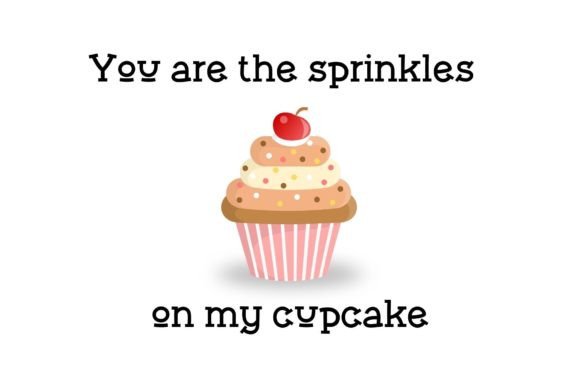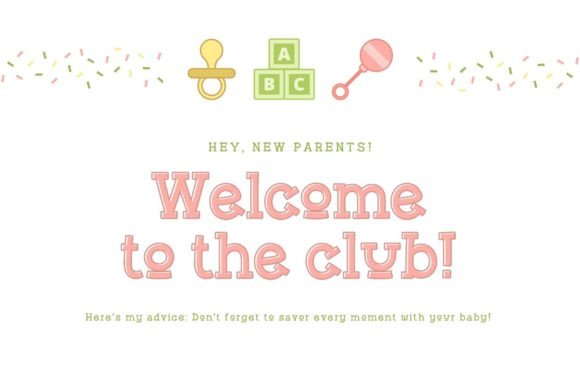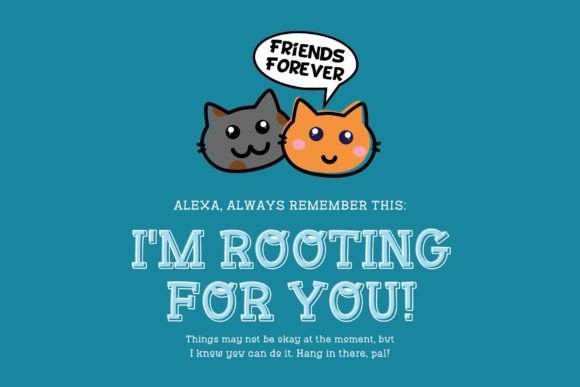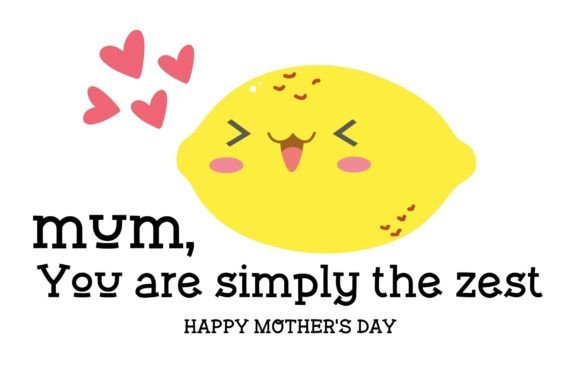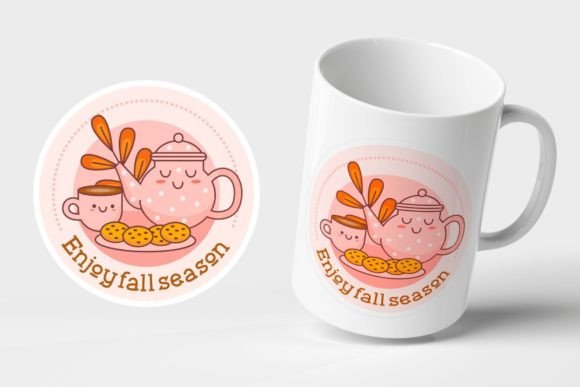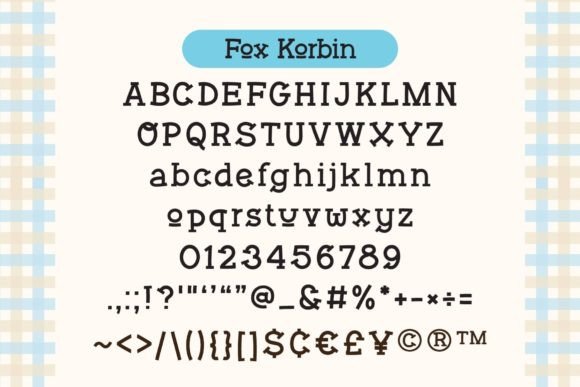
The Ultimate Guide to Fox Korbin Font: Unleashing Creative Possibilities
I’ll never forget the time I was working on a project for a client who needed a bold, eye-catching font to make their brand stand out. I scoured the internet, trying font after font, but nothing seemed quite right. That was until I stumbled upon Fox Korbin Font. Its unique blend of playfulness and sophistication instantly captured my attention, and I knew I had found the perfect fit. In this article, I’ll share my experience with Fox Korbin Font, its features, and how to make the most of it in your designs.
A Closer Look at Fox Korbin Font
Fox Korbin and Fox Korbin Outline fonts are cool and playful Slab Serif Fonts that add a captivating and energetic touch to your designs. Perfect for use in publications, menus, logos, business cards, or even printed on t-shirts, these fonts exude uniqueness. Its main feature is its vibrant and expressive design, allowing you to create attention-grabbing headlines, t-shirt typography, banners, product labels, and more.
My Honest Review
Here’s what I love about Fox Korbin Font:
- ✨ Unique and playful design: Fox Korbin Font stands out from the crowd with its bold and energetic vibe.
- ✅ Highly versatile: Use it for a wide range of projects, from digital designs to print materials.
- ✅ Easy to read: Despite its bold design, Fox Korbin Font remains surprisingly legible, even at smaller sizes.
And here are a few quirks to keep in mind:
- ⚠️ Limited use in formal designs: Fox Korbin Font is bold and playful, making it less suitable for formal or professional designs.
- 🤔 Some variation in letter spacing: You’ll need to adjust letter spacing for optimal results.
The Story Behind Fox Korbin Font
Fox Korbin Font was designed with the goal of creating a unique, attention-grabbing font that’s perfect for creative projects. The designer drew inspiration from a range of sources, including street art, graffiti, and vintage typography. The result is a font that’s both playful and sophisticated, with a bold, energetic vibe.
| Font Name | Fox Korbin Font |
| Author | Fox7 |
| What type of font is Fox Korbin Font? | Fox Korbin Font is a Slab Serif Font, perfect for use in titles, headings, and other display text. |
| Is Fox Korbin Font suitable for body text? | While Fox Korbin Font is bold and attention-grabbing, it’s not ideal for body text. Use it for titles, headings, and other display text for maximum impact. |
| Is Fox Korbin Font available in different styles? | Yes, Fox Korbin Font comes in two styles: regular and outline. Experiment with both styles to add more variety to your designs. |